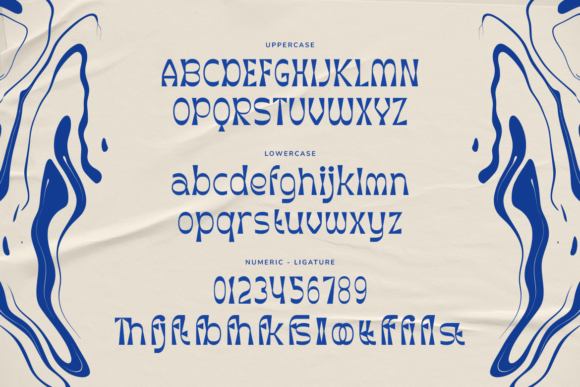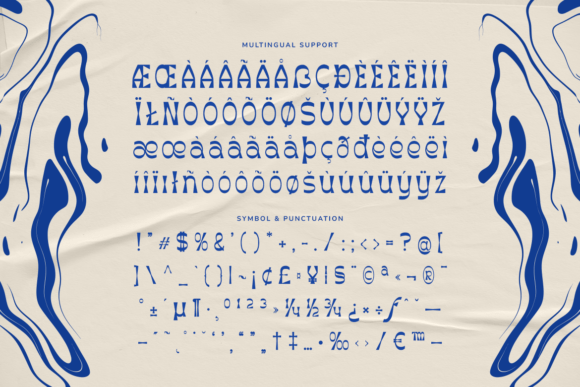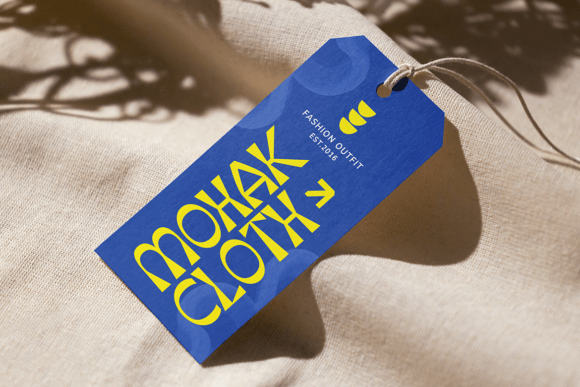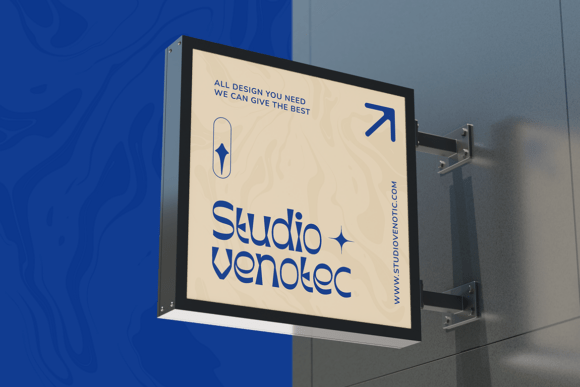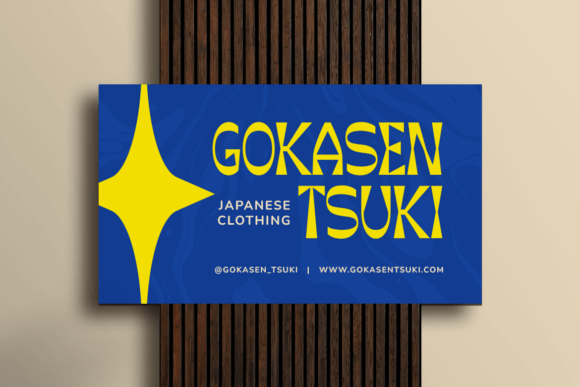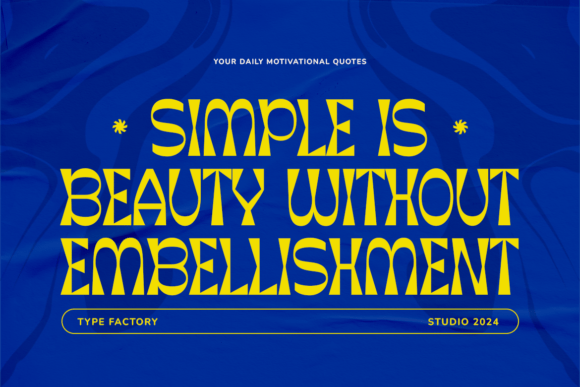
Introduction to Ronelle Font
Imagine you’re brainstorming a creative project, and you need a design resource that exudes confidence and artistic flair. You’re scrolling through font options, and suddenly, you stumble upon the perfect match – Ronelle Font. This bold display typeface is a game-changer for designers looking to add a touch of sophistication to their work.
With its smooth curves and dynamic geometric construction, Ronelle Font seamlessly blends sharp angles with flowing shapes, creating a distinctive rhythm that feels both expressive and contemporary. Whether you’re working on branding, posters, or social media graphics, Ronelle Font is the perfect choice to make a strong visual impact.
As a valuable addition to any designer’s toolkit, Ronelle Font offers high-quality designs with transparent backgrounds, making it easy to download and use in your creative projects. With its extensive character set and multilingual support, you can rely on Ronelle Font to elevate your design work to new heights.
Key Features of Ronelle Font
- Features a transparent background, allowing for seamless integration into any design.
- Includes a range of characters, including uppercase and lowercase letters, numbers, and special symbols.
- Designed with a high-resolution 300 DPI, ensuring crisp and clear text display.
- Supports various languages, making it a versatile design resource for global creative projects.
- Perfect for use in digital and print designs, including logos, branding materials, and marketing collateral.
Honest Review: Ronelle Font
I recently stumbled upon the Ronelle Font and was excited to give it a try in my creative project. As a designer, I’m always on the lookout for high-quality design resources that can elevate my work.
- ✨ The Ronelle Font has a clean and modern aesthetic that works well for a variety of design applications, from branding to digital products.
- ✨ The transparent background of the font makes it easy to layer and manipulate in design software.
- ⚠️ The font only comes in one weight, which may limit its use in certain design scenarios where a range of weights is desired.
- ⚠️ Some users may find the font’s style a bit too generic, making it harder to stand out in a crowded design landscape.
Overall, I’m impressed with the Ronelle Font’s high quality and versatility. While it may have some limitations, I believe it’s a solid choice for designers looking for a free, modern font to add to their toolkit.
The Ronelle Font is perfect for a variety of creative projects, including:
- Logos and branding
- Business cards and stationery
Q: Is the Ronelle Font a high-quality design resource?
Yes, the Ronelle Font is a high-quality design resource, featuring a transparent background and a wide range of characters, including uppercase and lowercase letters, numbers, and punctuation marks. The font is designed to be versatile and suitable for a variety of creative projects, from logos and branding to digital products and print materials.